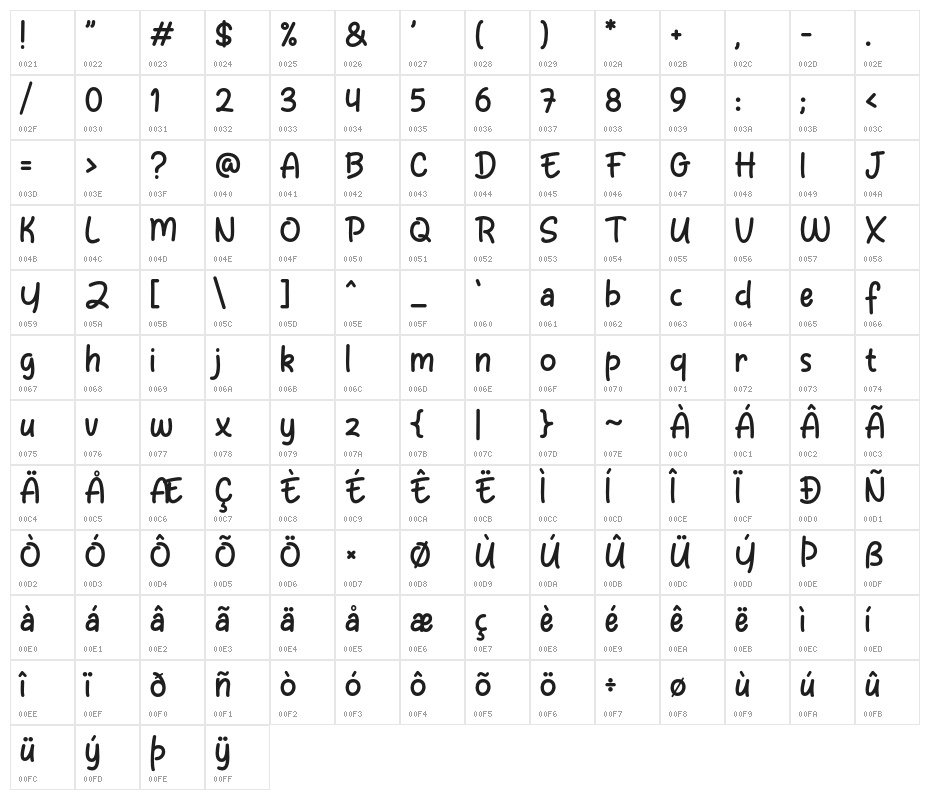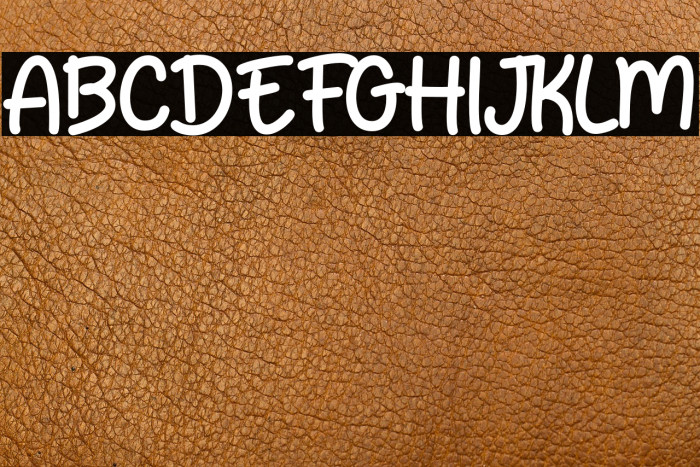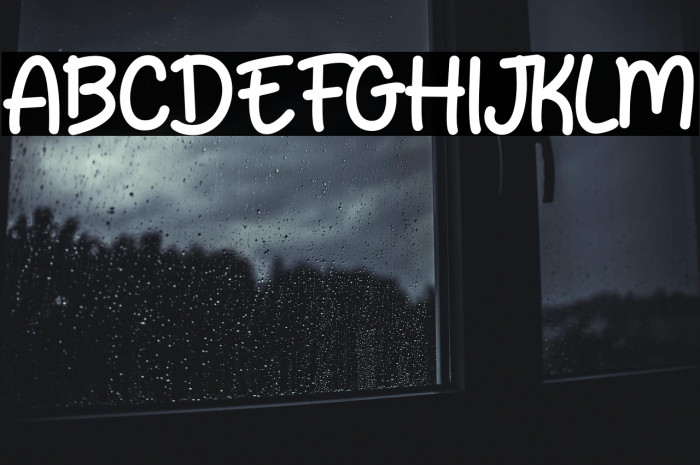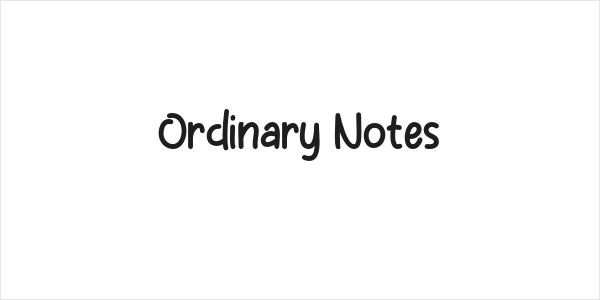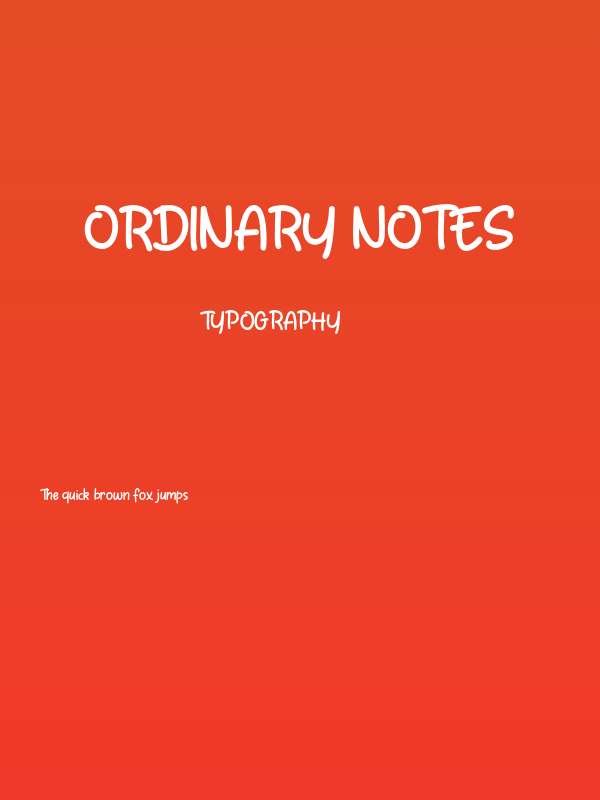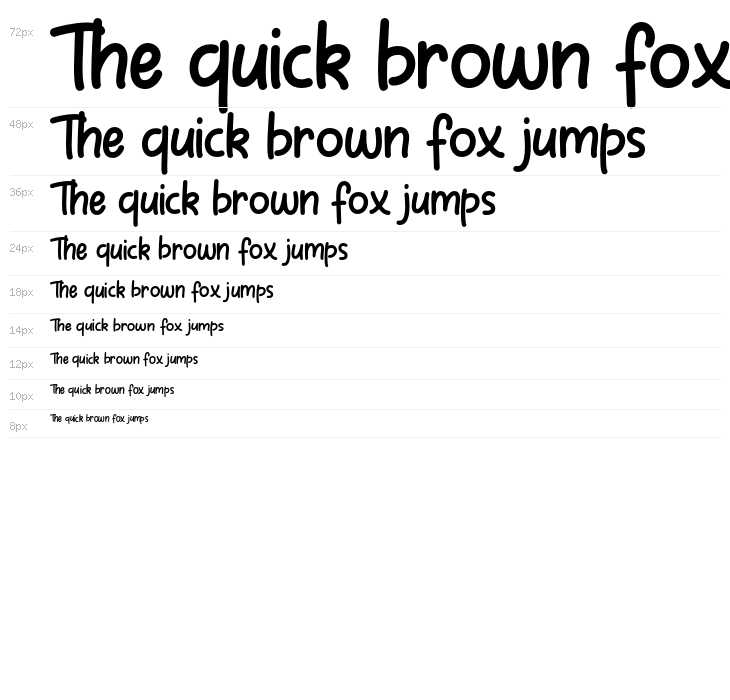
Ordinary Notes Font
Ordinary Notes Description
This font features a playful and casual handwritten style, characterized by its rounded and smooth letterforms. The strokes are consistent in width, giving it a uniform appearance. The letters are slightly slanted, adding a dynamic and informal touch. The overall look is friendly and approachable, making it suitable for projects that require a personal and human touch. The characters are well-spaced, ensuring readability while maintaining a relaxed vibe. This font is versatile, fitting well in both digital and print media, and can be used to convey warmth and creativity.
| Proposed Projects | Ideal for greeting cards, children's books, personal blogs, and informal branding. |